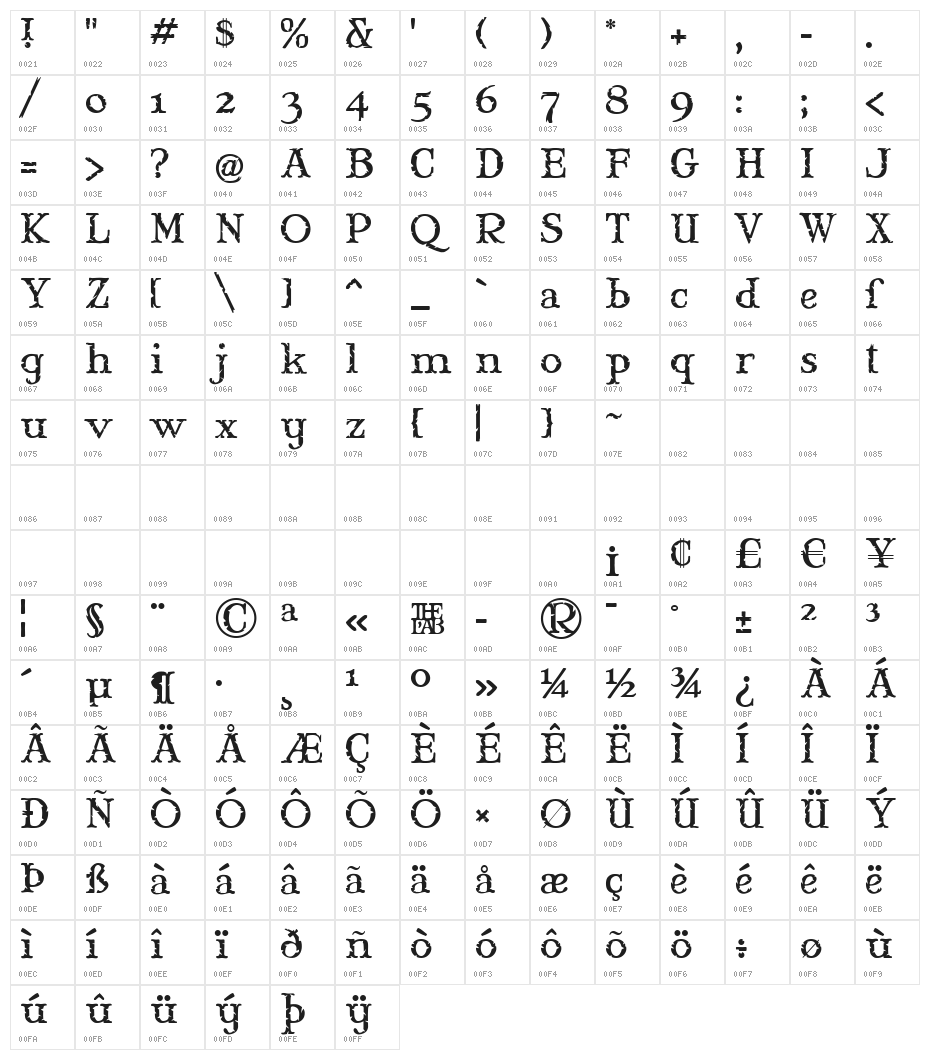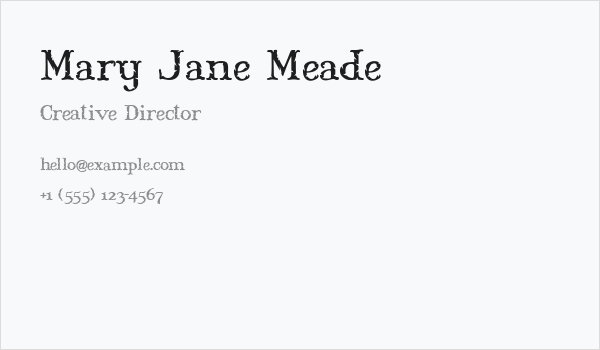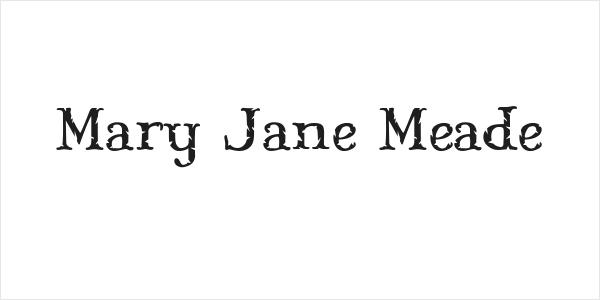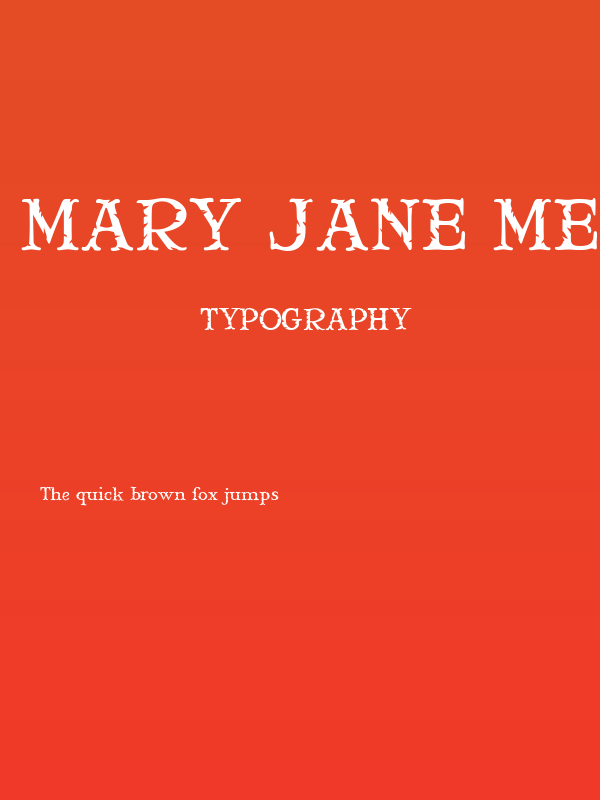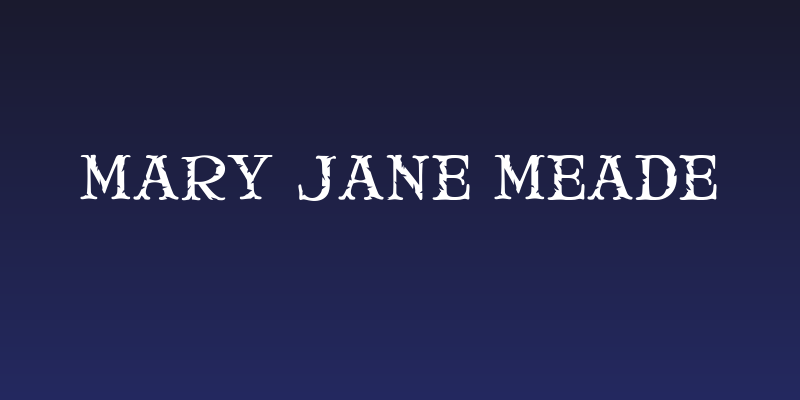
Mary Jane Meade Font
Mary Jane Meade Description
This font features a distinctive and bold design with a rough, textured appearance that gives it a unique, handcrafted feel. The characters have irregular edges and varying stroke thickness, creating a dynamic and eye-catching look. The uppercase and lowercase letters maintain a consistent style, while the numerals and special characters complement the overall aesthetic. This font is ideal for projects that require a strong visual impact and a touch of artistic flair.